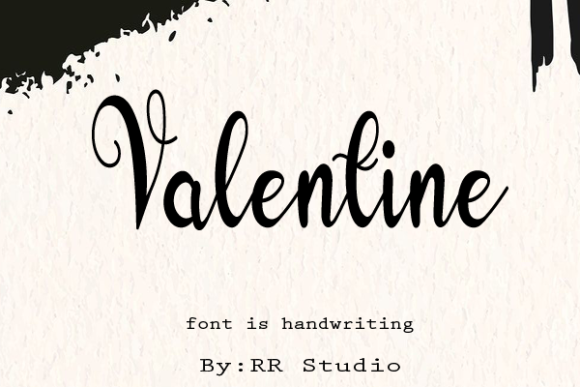
Valentine Script Font
About Valentine Script Font
Valentine Script is a stylish and adaptable handwritten font. It looks lovely on wedding invitations, thank you cards, quotes, greeting cards, logos, business cards and every other design which needs a personalized touch.